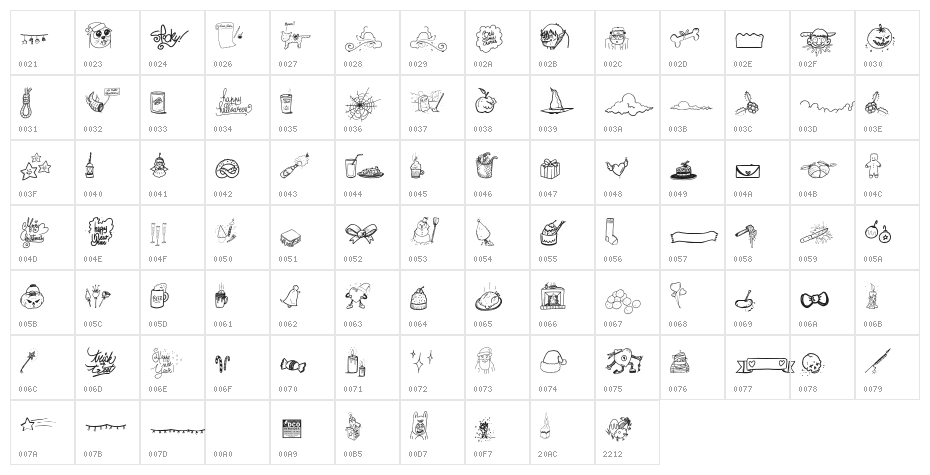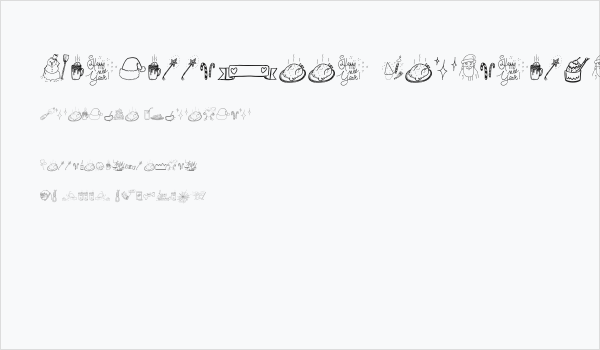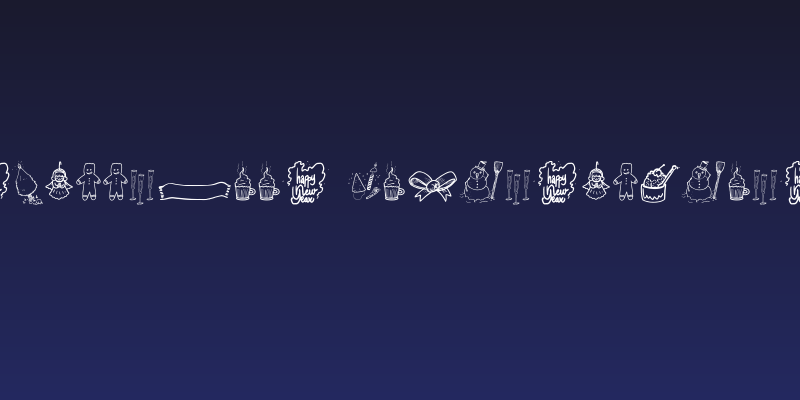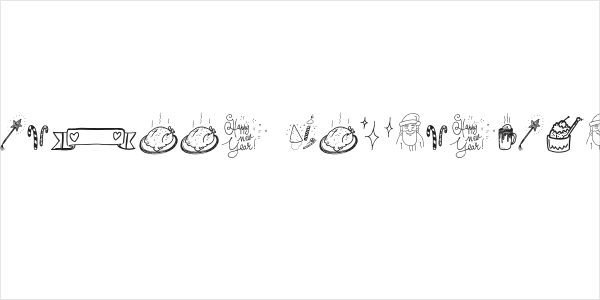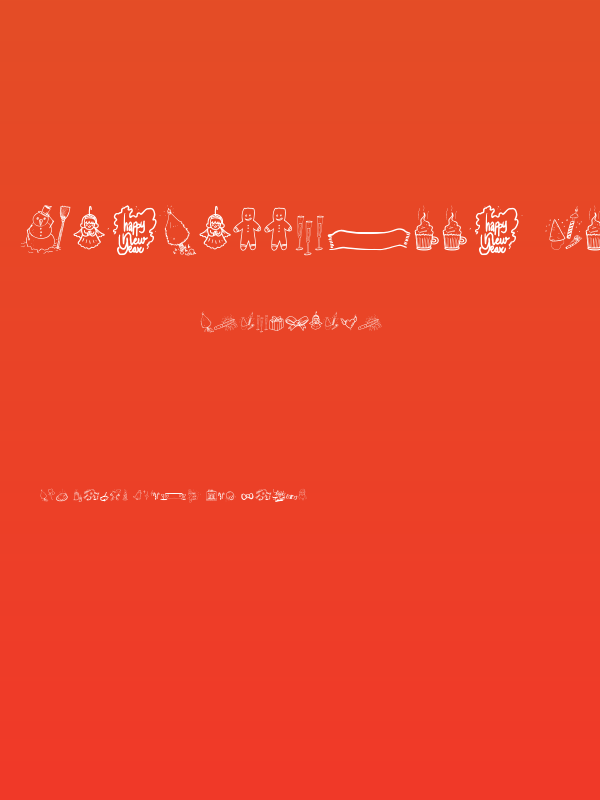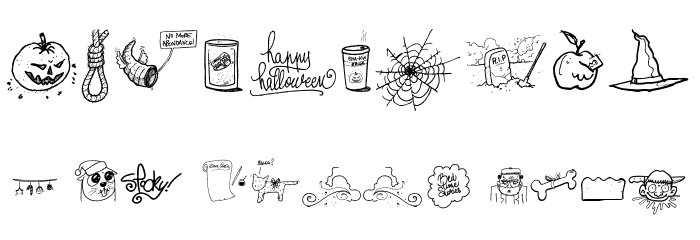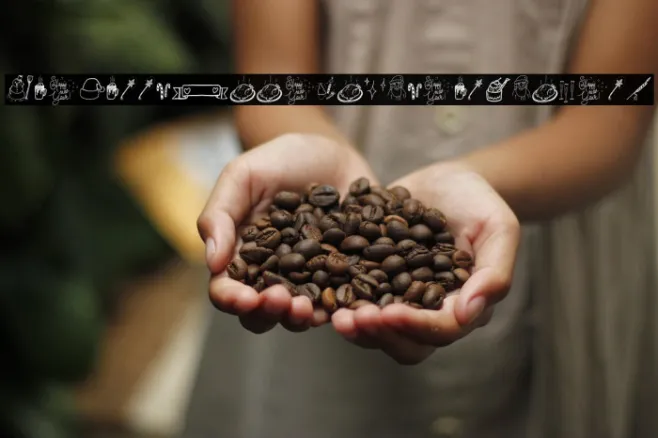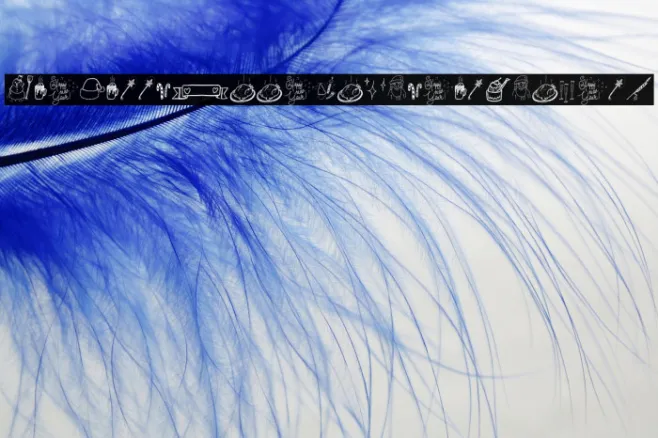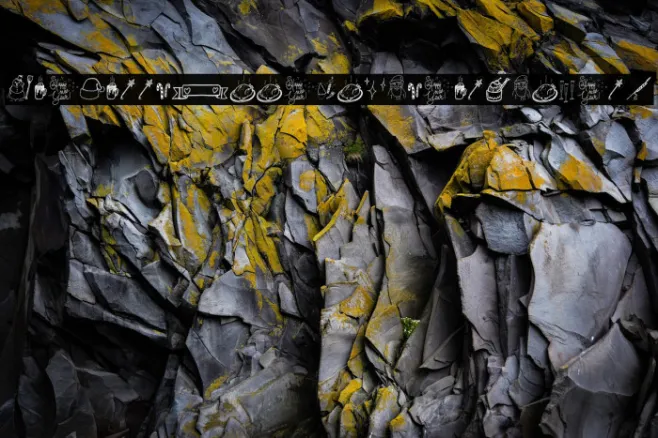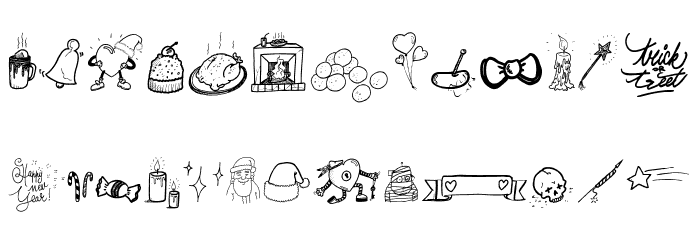
Santalloween_PersonalUseOnly Font
Santalloween_PersonalUseOnly Description
This is not a traditional font but rather a collection of decorative and thematic illustrations. The images include various holiday-themed icons such as Christmas trees, gifts, Halloween pumpkins, and New Year’s decorations. Each character is represented by a unique drawing that captures the essence of festive celebrations. The style is playful and whimsical, making it suitable for creative projects that require a touch of holiday spirit. The illustrations are detailed and varied, offering a wide range of visual elements to enhance designs.
| Overall Style | Whimsical |
| Use Case | Decorative elements for holiday-themed projects. |
| Proposed Projects | Ideal for holiday greeting cards, festive invitations, seasonal marketing materials, and decorative posters. |